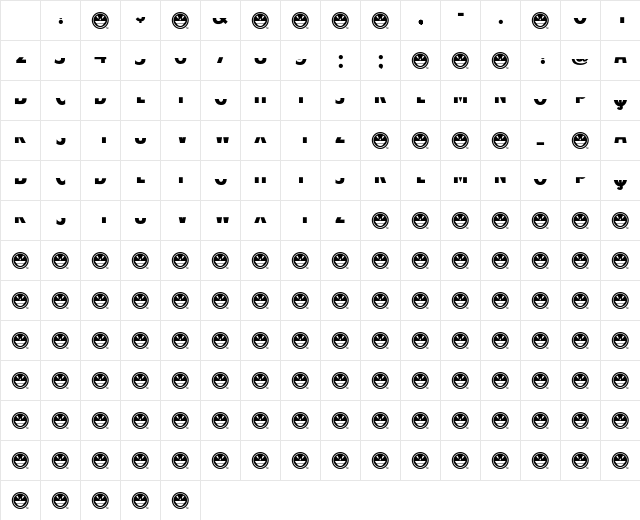
Complete American Purpose STRIPE 1 Bold Italic glyph index. Displaying only characters natively supported by American Purpose STRIPE 1 Bold Italic font.
American Purpose STRIPE 1 is a composed and adaptable typeface that performs quietly and consistently across a wide range of design contexts. The slanted form adds forward momentum and visual energy. Its bold stroke weight gives it real presence on the page.
Pro Tip: Use American Purpose STRIPE 1 for emphasis, pull quotes, and subheadings where its slanted energy can add rhythm to the layout.